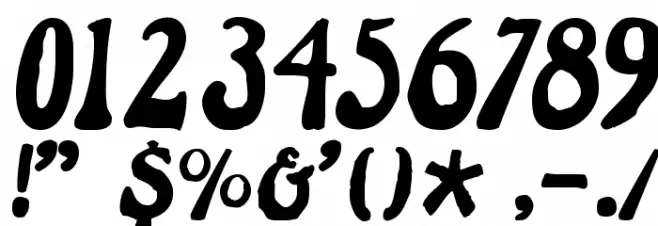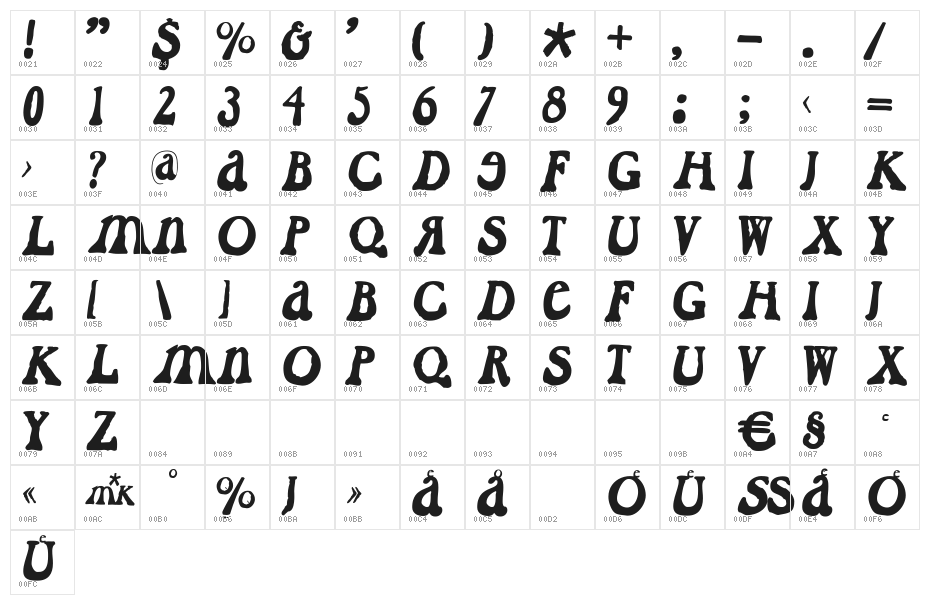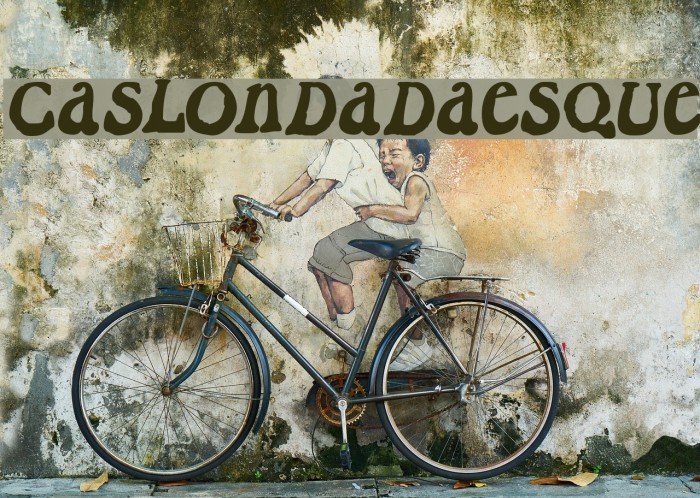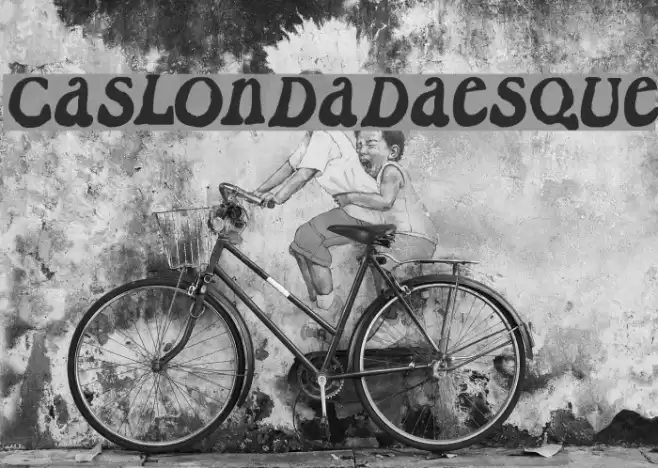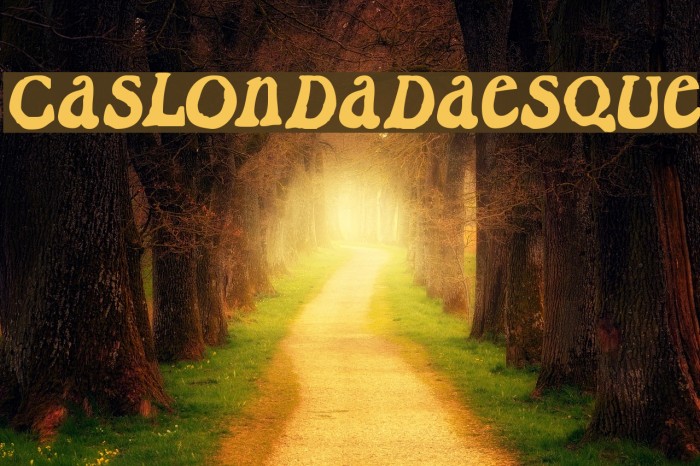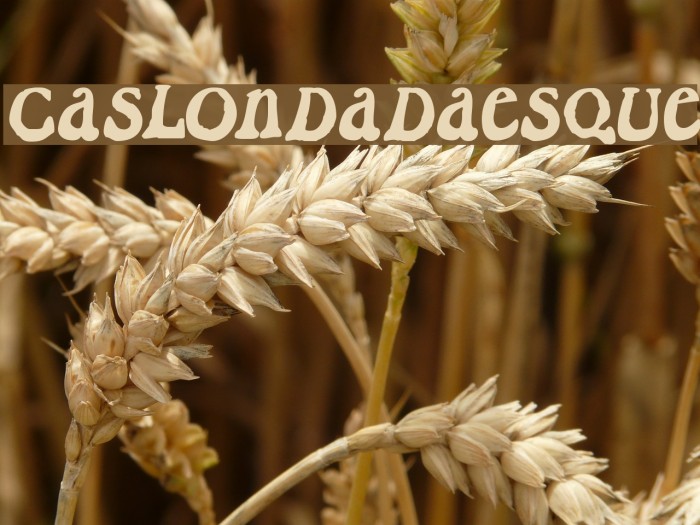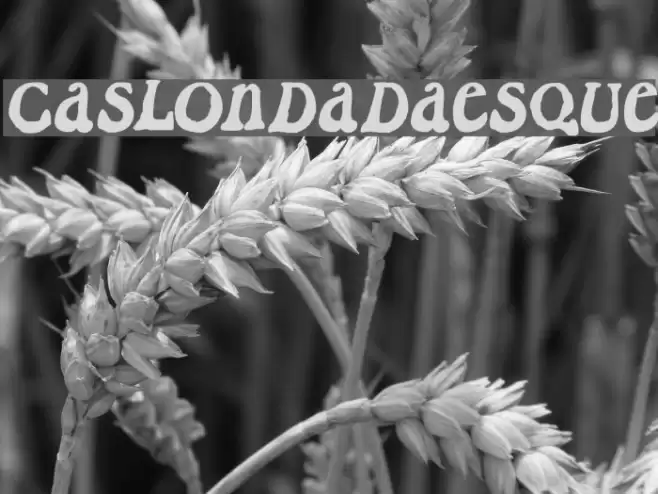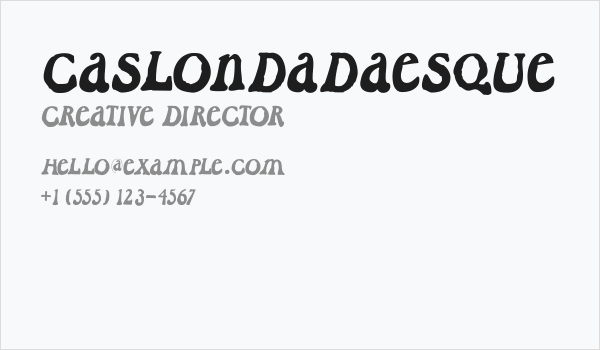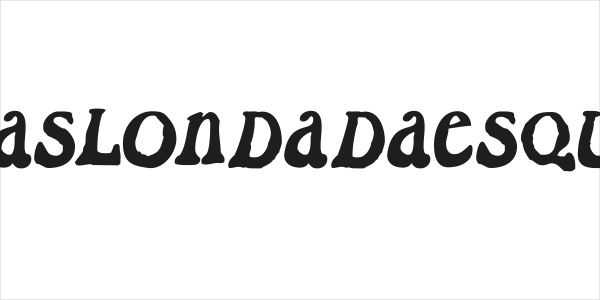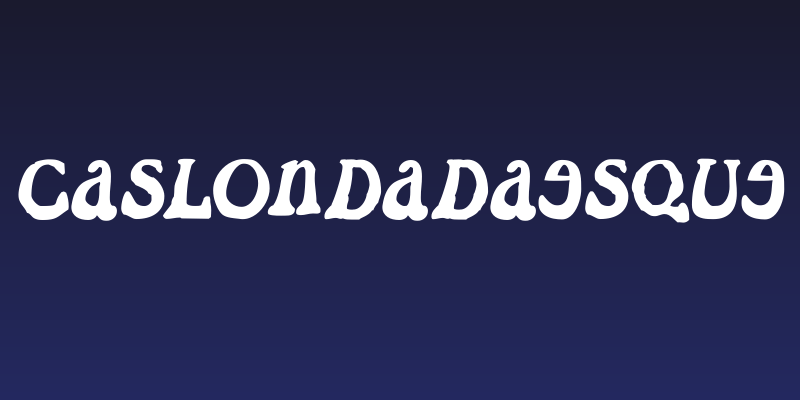
CaslonDadaesque Font
CaslonDadaesque Description
This font exhibits a unique blend of classic serif elements with a playful, dadaesque twist. The characters are bold and slightly irregular, giving them a hand-drawn appearance. The uppercase letters have a whimsical quality, with exaggerated curves and varying stroke widths that create a dynamic visual rhythm. The lowercase letters maintain this playful style, with some characters featuring unexpected angles and curves. The numerals are bold and consistent with the overall style, while the special characters add a touch of eccentricity. This font is perfect for projects that require a distinctive and artistic touch.